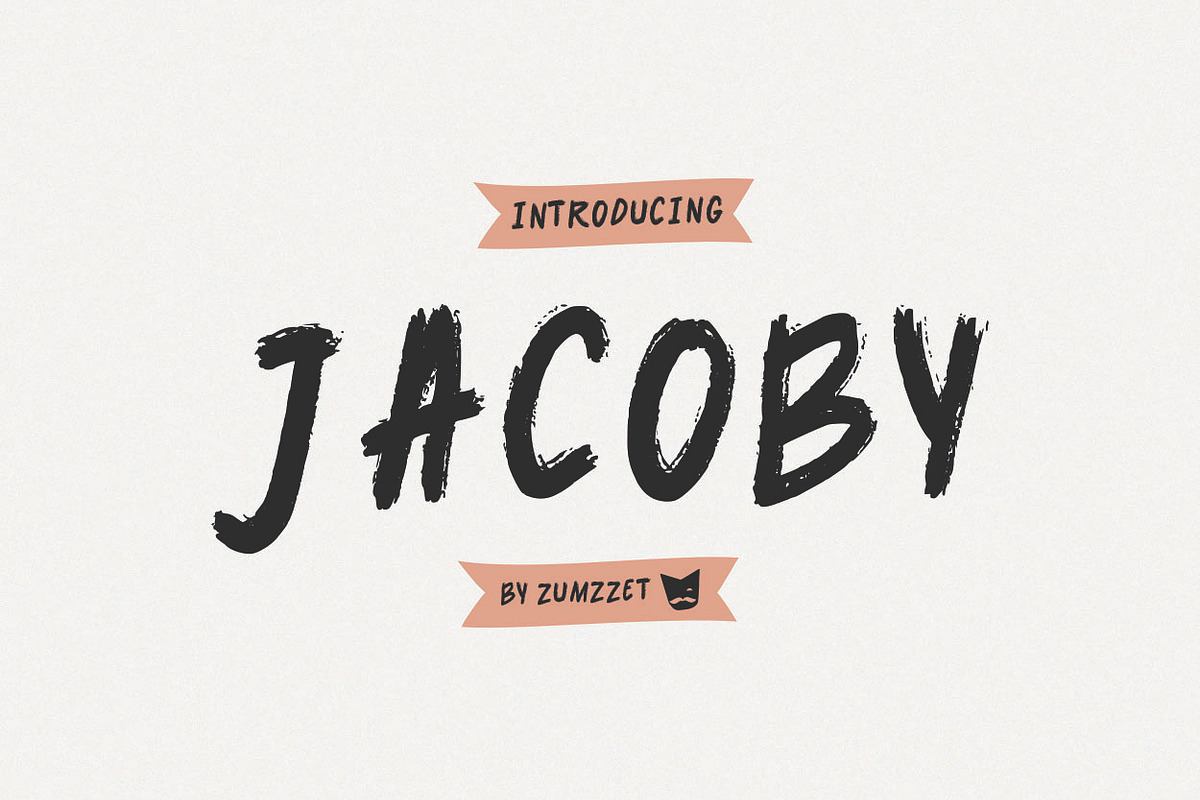
Jacoby Cool & Playful Font Free Download
You must purchase this font for commercial use. However, you can download Jacoby Cool & Playful Font Free Download for testing purposes. Jacoby is a fun and energetic font that combines playful letterforms with a cool, modern vibe. Perfect for creating vibrant logos, social media graphics, event posters, branding, and more, this font adds personality and creativity to your designs.
With its rounded edges and dynamic design, Jacoby brings a sense of joy and liveliness, making it ideal for projects that want to convey energy and a youthful spirit. Whether you're working on a playful brand, a casual event invitation, or a creative marketing campaign, this font will add a cool and fun touch to your typography.